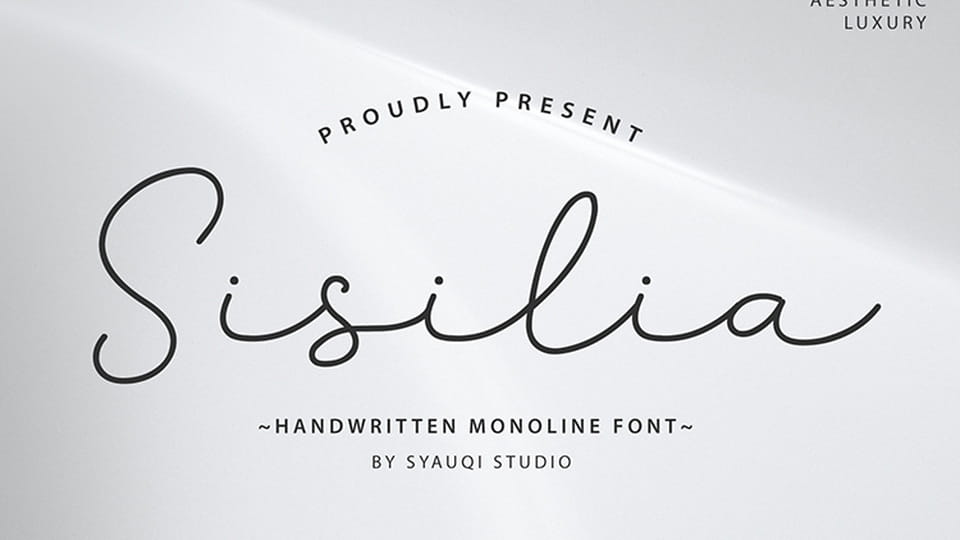
Download Sisilia font, a modern handwritten font. Bring elegance and personality to your designs with Sisilia, a font that feels natural, stylish, and effortlessly sophisticated.
Designer: Syauqi Studio